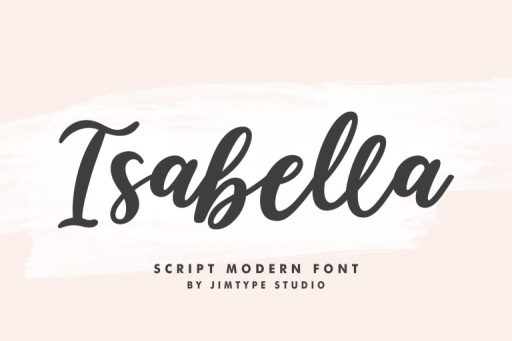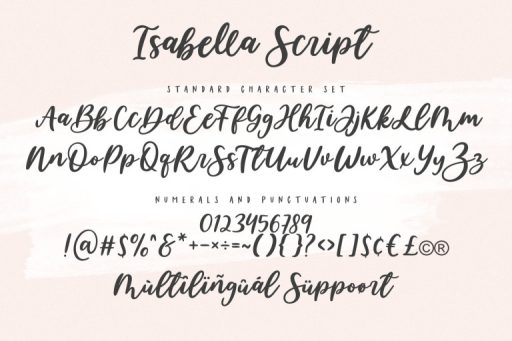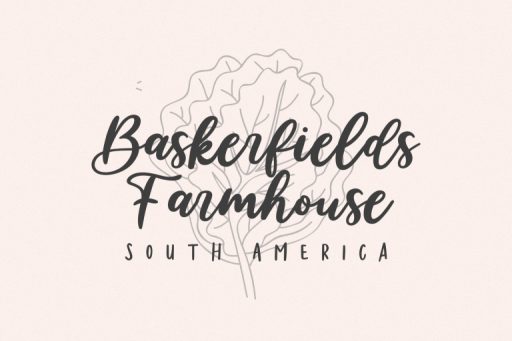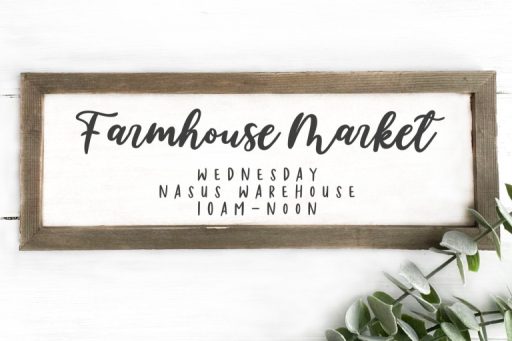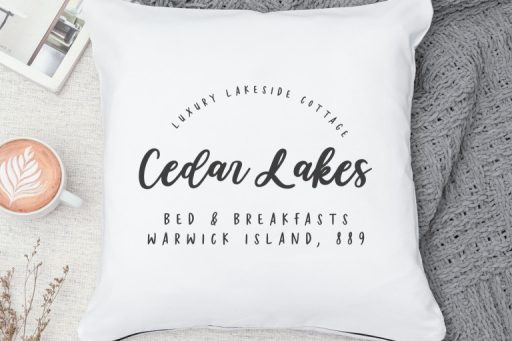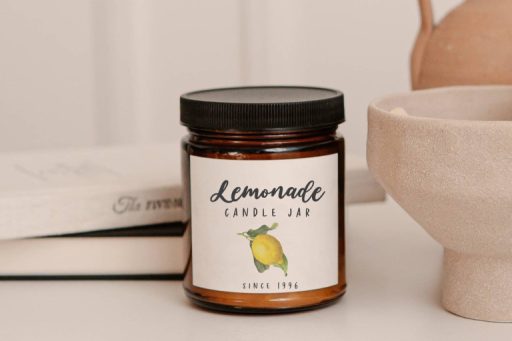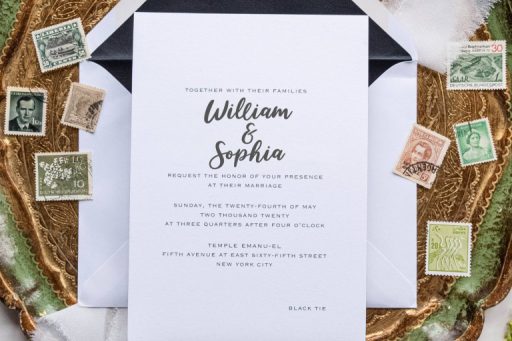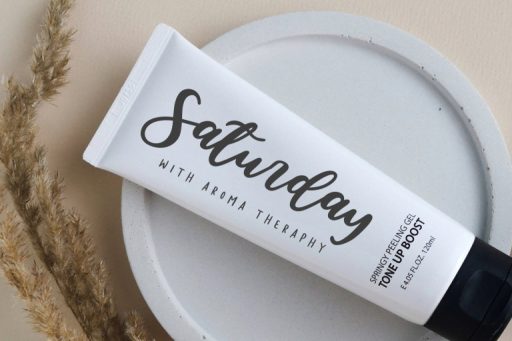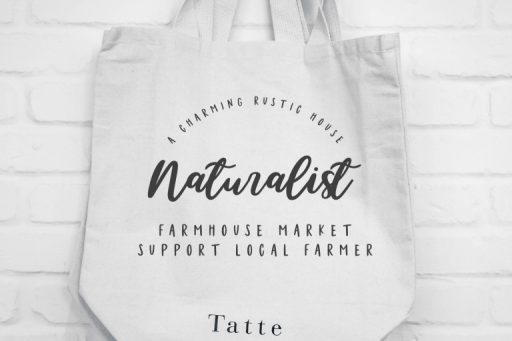
Isabella Script - Cute Branding Font from Jimtype Studio
Isabella Script
Isabella Script – Cute Branding Font from Jimtype Studio
Welcome to ‘Isabella Script Font’ – where elegance meets playfulness in the world of fonts! This versatile script font combines feminine charm with a touch of farmhouse style, making it perfect for a wide range of creative projects. Whether you’re crafting with Cricut or adding a handwritten flair to your designs, ‘Isabella’ adds a delightful twist. Explore our font collection now and let your imagination flourish with ‘Isabella Script Font.’
Isabella Font